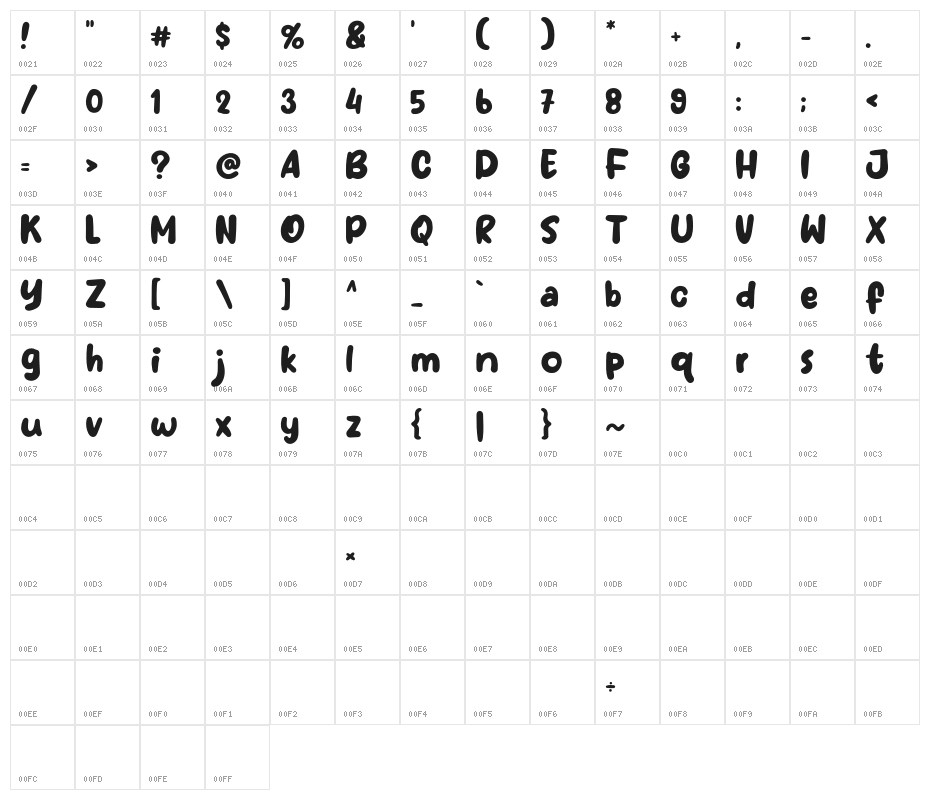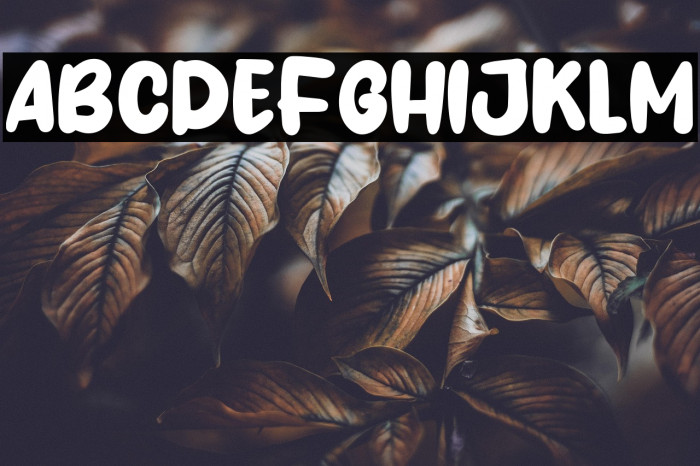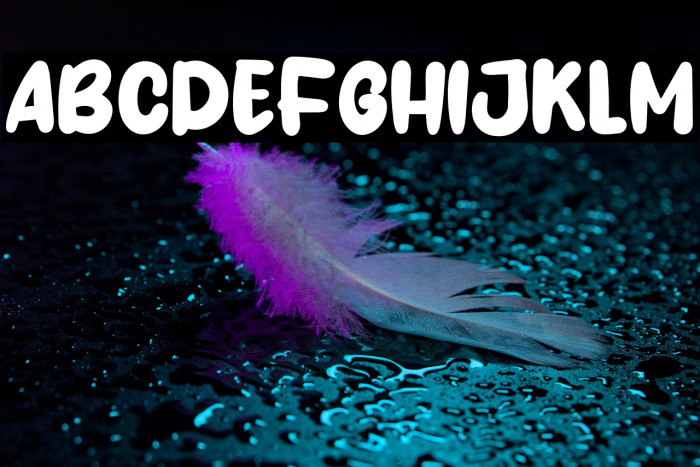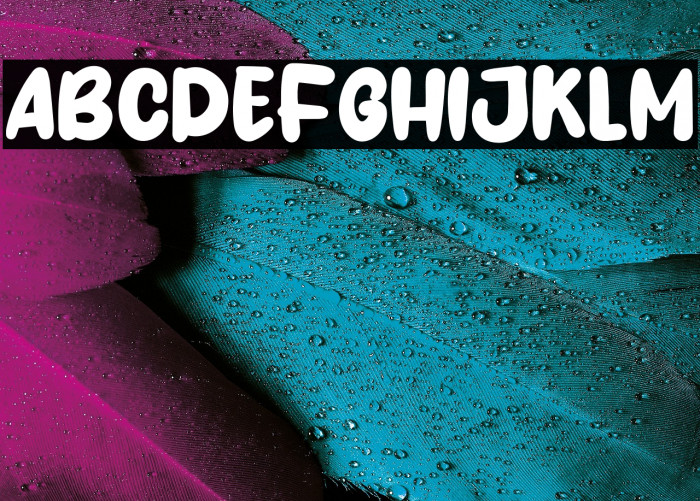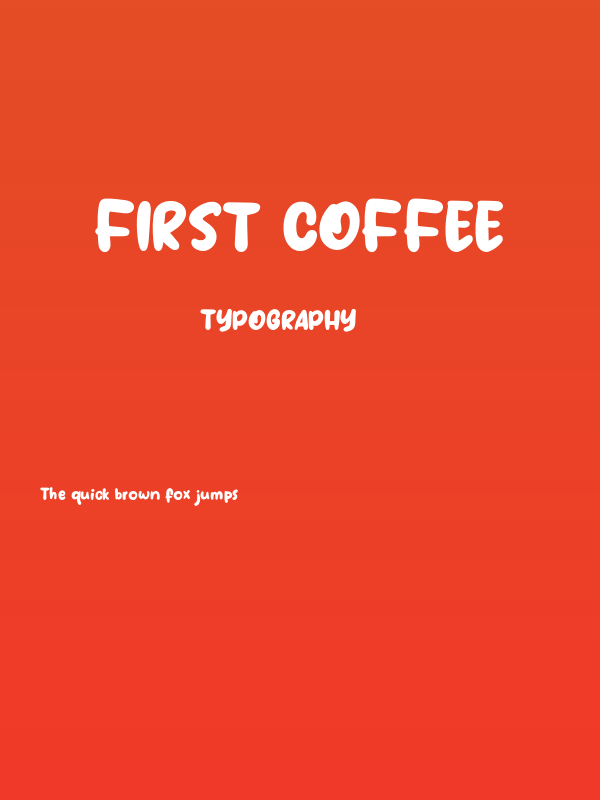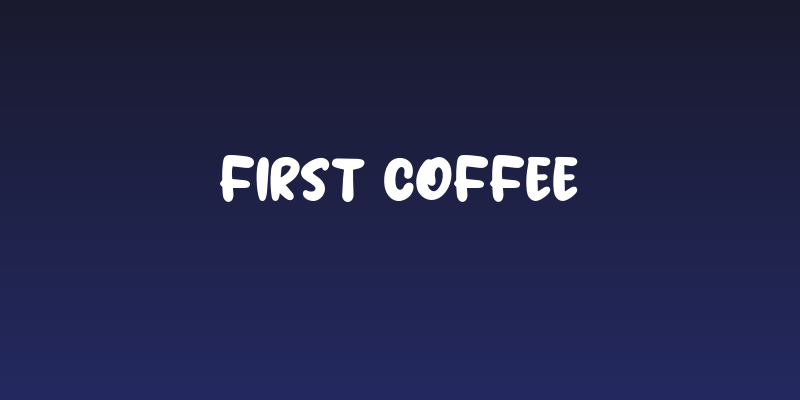
First Coffee Font
First Coffee Description
This font features a playful and bold style with rounded edges and a hand-drawn feel. The letters are thick and have a consistent weight throughout, giving them a strong presence. The characters are slightly condensed, which adds to the compact and friendly appearance. The numbers and special characters maintain the same playful and bold characteristics, ensuring a cohesive look across all elements. This font exudes a casual and approachable vibe, making it suitable for projects that aim to convey warmth and friendliness.
| Width | Condensed |
| Overall Style | Casual |
| Proposed Projects | Ideal for children's books, playful branding, casual invitations, and social media graphics. |